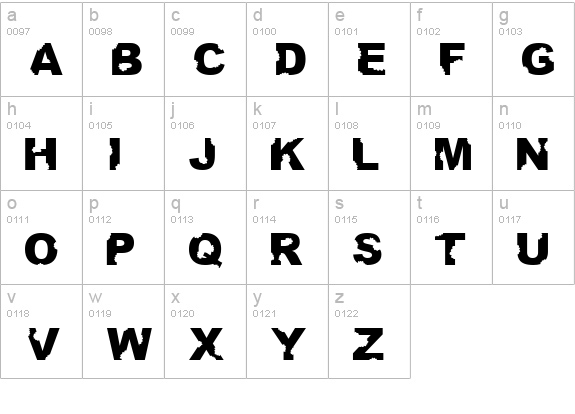
AteUpWithDumbAss Font Details
AteUpWithDumbAss font is a quirky and playful typeface that is sure to add a touch of humor to your designs. With its unique and whimsical characters, this font is perfect for creating eye-catching headlines, posters, and logos. The irregular shapes and uneven lines give it a hand-drawn feel that is both charming and engaging. Best of all, AteUpWithDumbAss font is available for free download at FontsMarket.com. Whether you're a designer looking to add a fun twist to your projects or a casual user in need of a lighthearted font for personal use, this font is sure to delight. Don't miss out on the opportunity to add some personality to your designs with AteUpWithDumbAss font – download it for free today!